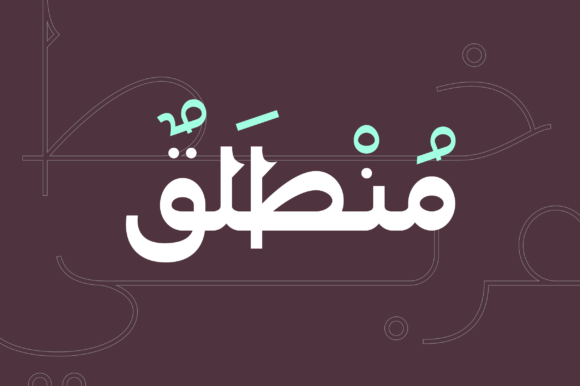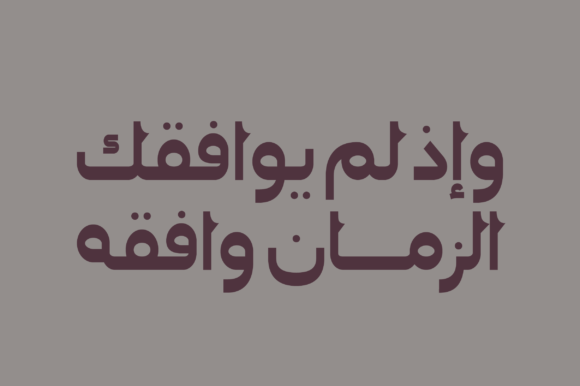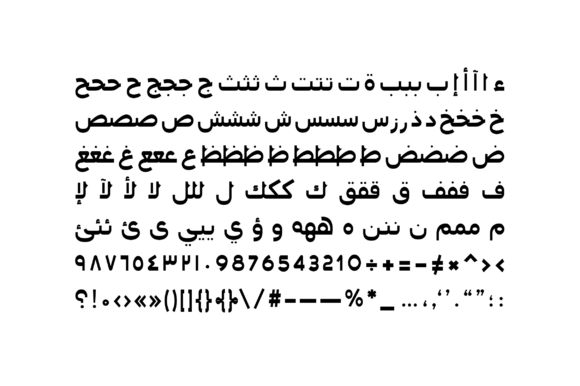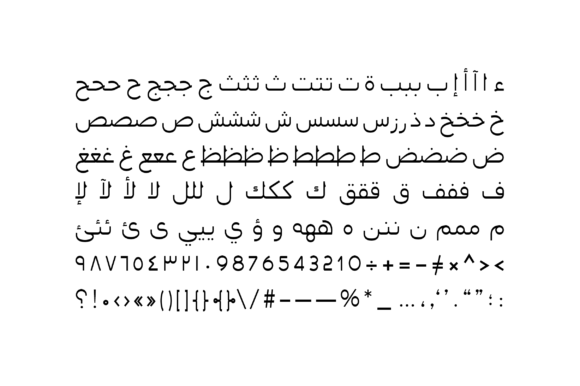
Montalaq Font
About the Montalaq Font
Meet Montalaq Font, a stunning font that brings a touch of elegance and professionalism to any design. Montalaq (which is the Arabic word for ‘takeoff base’) is an Arabic display font based on an Arabic handwriting style redesigned into a geometric structure. The typeface is perfect for print, web, and mobile applications.
Montalaq’s geometric structure and bold strokes make it ideal for headlines, logos, and short impactful statements in branding materials and posters. Its strong presence, however, makes it unsuitable for body text or long paragraphs; readability suffers at smaller sizes. Consider it for packaging where a concise, modern feel is desired. Avoid using it in user interfaces due to potential legibility issues.
The font projects a confident and modern personality. To complement this, pair Montalaq with a clean sans-serif like Open Sans for body text, or a more playful script like Pacifico for secondary elements, depending on the desired overall mood. For a more serious and sophisticated application, consider pairing it with a classic serif such as Garamond.
A geometric sans-serif like Futura could also work well, maintaining a consistent modern aesthetic while offering a contrasting yet harmonious balance to Montalaq’s strong geometric forms.